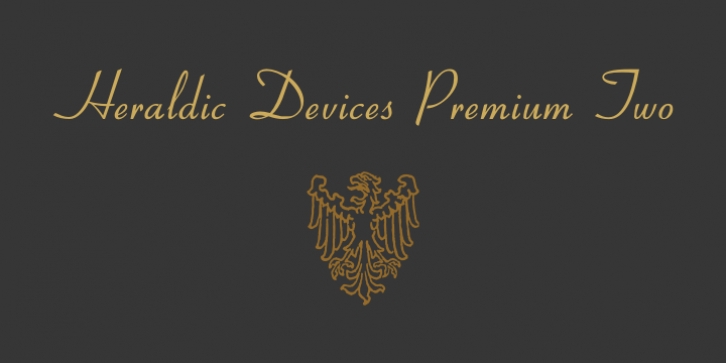
Heraldic Devices Premium was designed by Paulo W and published by Intellecta Design. Heraldic Devices Premium contains 2 styles and family package options.
A collection of shields, crowns and heraldry designs.
Represents heraldry devices, Spanish city seals, world nations seals, coats of arms, helms, crowns, crests etc.